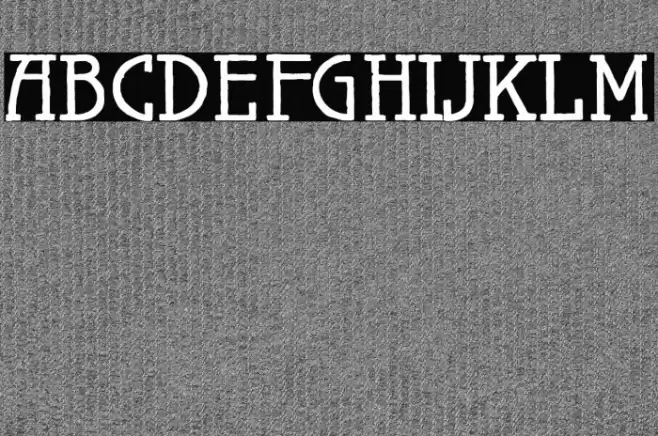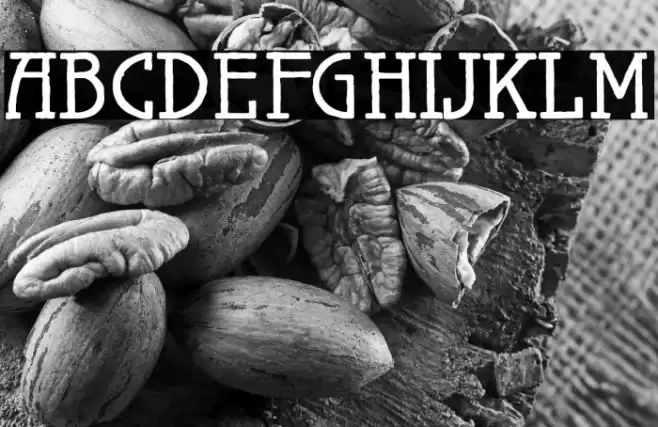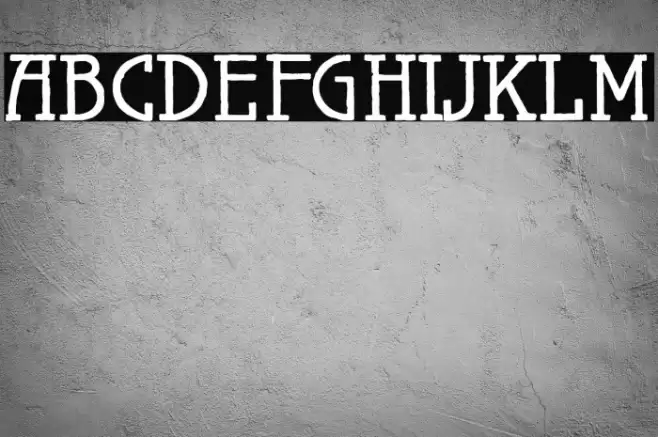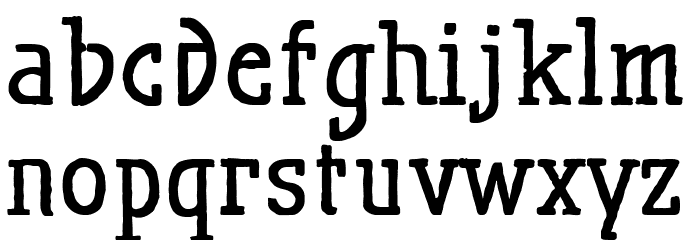
MaiersNr.Reduced-Bold Font
MaiersNr.Reduced-Bold Description
This font features a distinctive and bold style with a strong presence. The characters have a unique, slightly rough texture that gives them a handcrafted appearance. The uppercase letters are tall and commanding, while the lowercase letters maintain a consistent height, creating a balanced and cohesive look. The serifs are pronounced, adding to the font's boldness and making it suitable for attention-grabbing designs. The numbers and special characters are designed with the same bold and textured style, ensuring uniformity across all elements.
A bold, textured serif font with a handcrafted appearance from Uncategorized fonts.
- Proposed Projects: Ideal for vintage-themed posters, book covers, branding, and logo design where a strong, bold statement is needed.
- Overall Style: Vintage